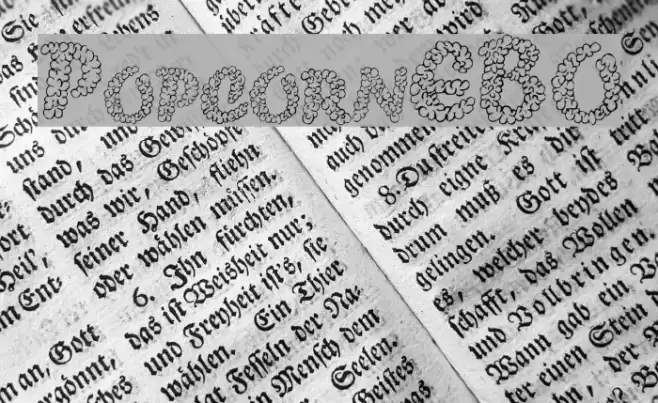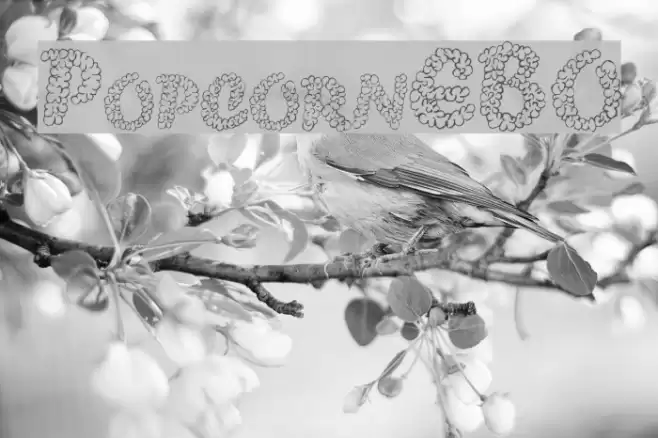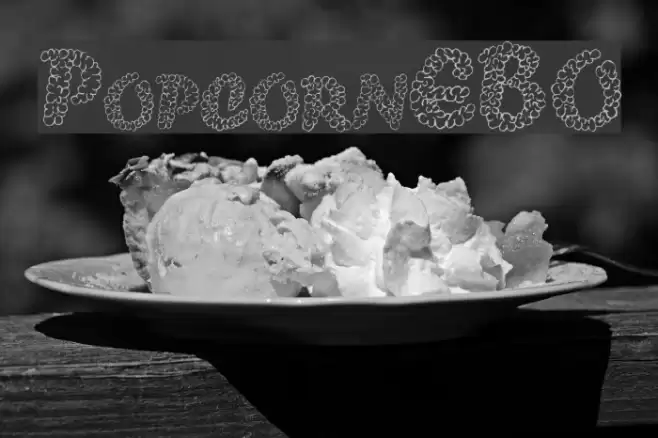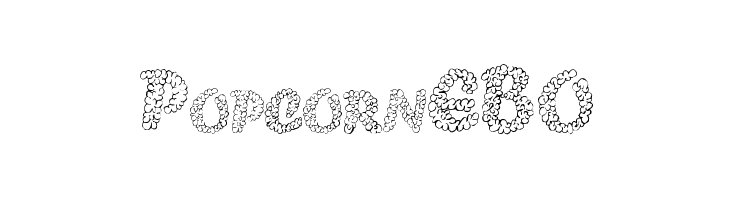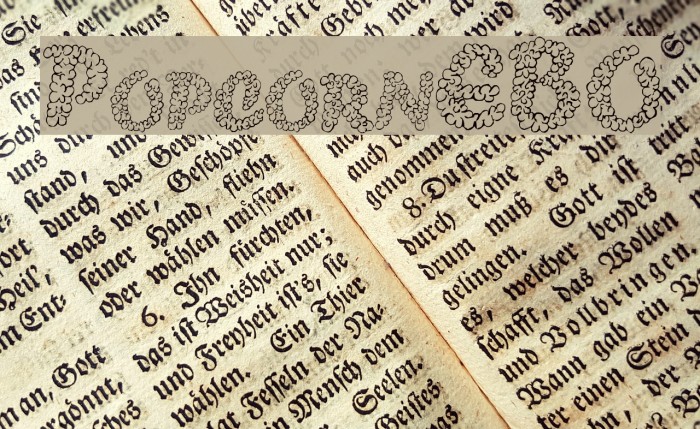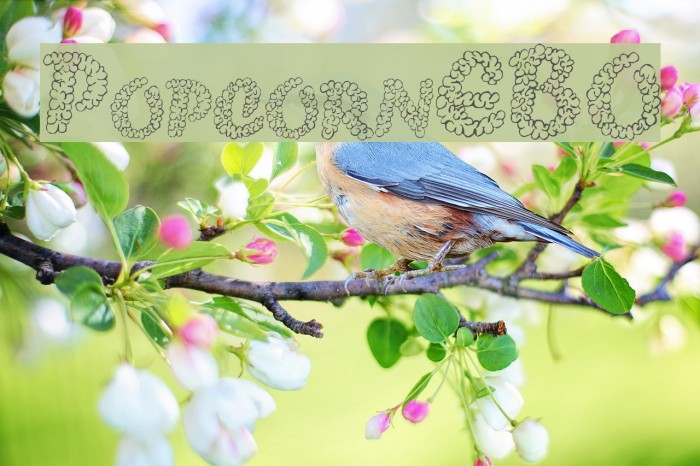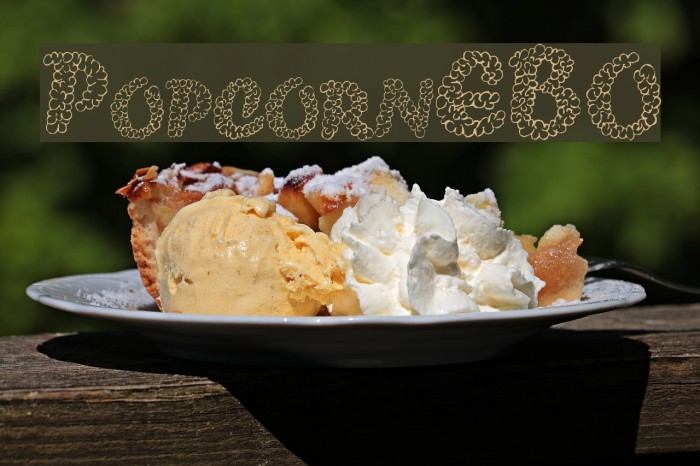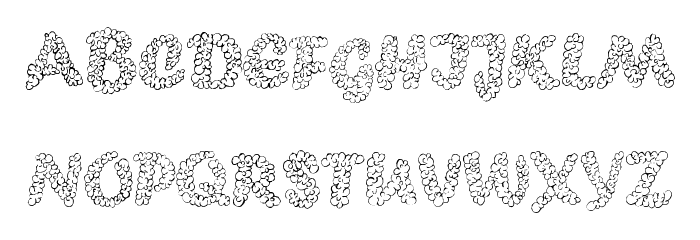
PopcornEBO Font
PopcornEBO Description
This playful and whimsical font is designed to resemble clusters of popcorn forming each letter. The characters are composed of small, rounded shapes that mimic the texture and appearance of popcorn kernels. This unique style gives the font a fun and casual feel, making it ideal for projects that require a lighthearted and entertaining touch. The font maintains a consistent size and shape across all characters, ensuring readability while still delivering a creative flair. Its distinctive design is sure to capture attention and add a touch of fun to any project.
A playful font resembling clusters of popcorn, perfect for fun and casual designs from Decorative fonts.
- Proposed Projects: Ideal for children's books, movie-themed events, party invitations, and playful branding.